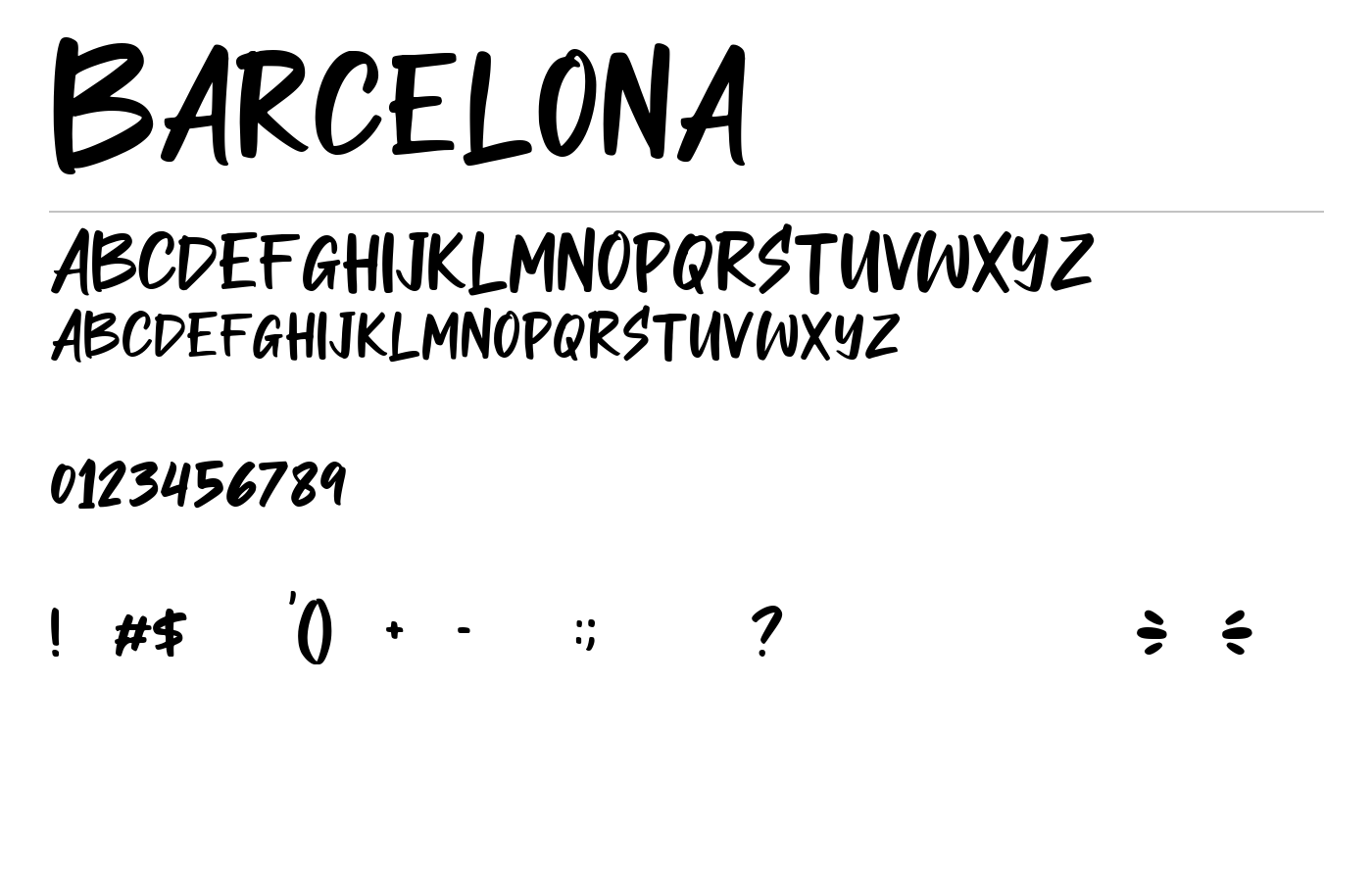
Barcelona Font is a casual, handwritten sans serif typeface that feels lively and approachable with a slightly bold weight and normal width. Its playful, organic letterforms, including single-story shapes and dynamic curves, make it perfect for designs seeking a friendly, informal vibe such as youth-focused branding, creative projects, and casual headlines. This font works well where personality and warmth are desired, adding a personal touch without sacrificing readability.
Barcelona Font
About Barcelona Font
| Font family | Barcelona Font |